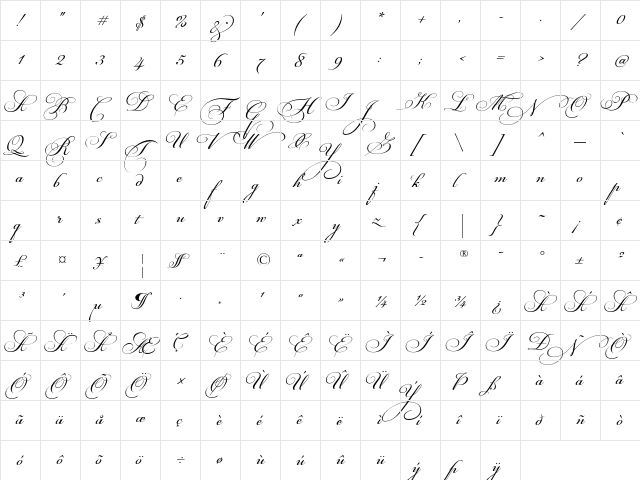
PF Champion Script Pro Regular
| Foundry | Parachute蠗orldwide |
| Designer | Panos Vassiliou |
Design Context for PF Champion Script Pro Typeface
PF Champion Script Pro flows with the natural rhythm of handwritten lettering, making it ideal for designs that call for warmth and personal expression.
Font Pairing: Combine PF Champion Script Pro with a simple geometric sans for maximum contrast — the tension between flowing curves and clean structure is a classic typographic pairing.
Pro Tip: Use PF Champion Script Pro for short runs of text — names, titles, or taglines. Extended body copy in script faces tires the eye quickly.